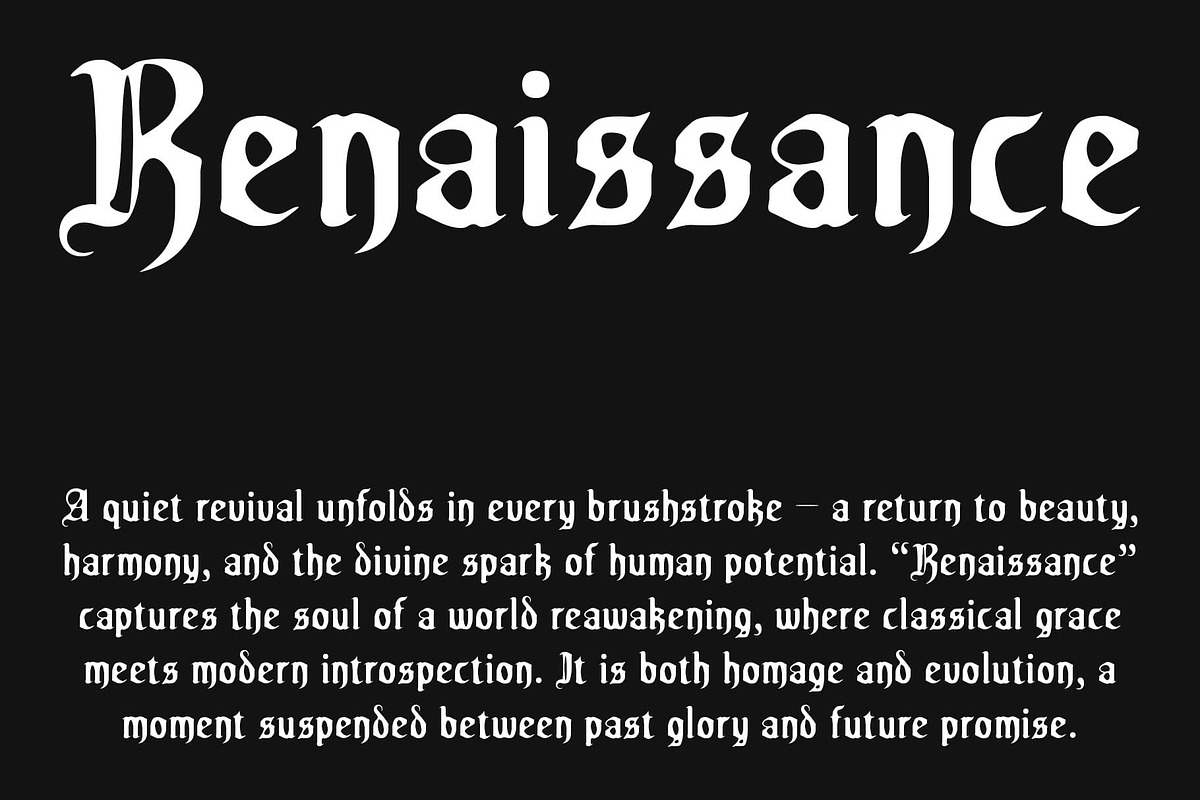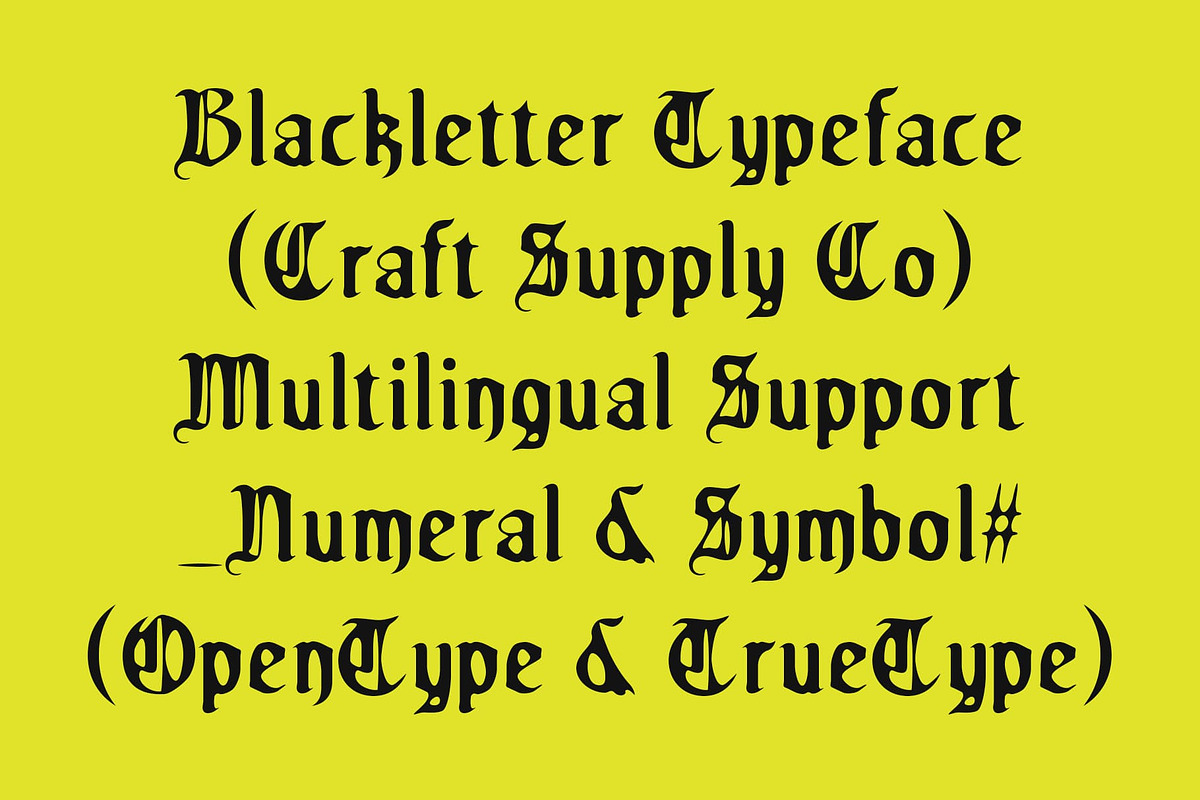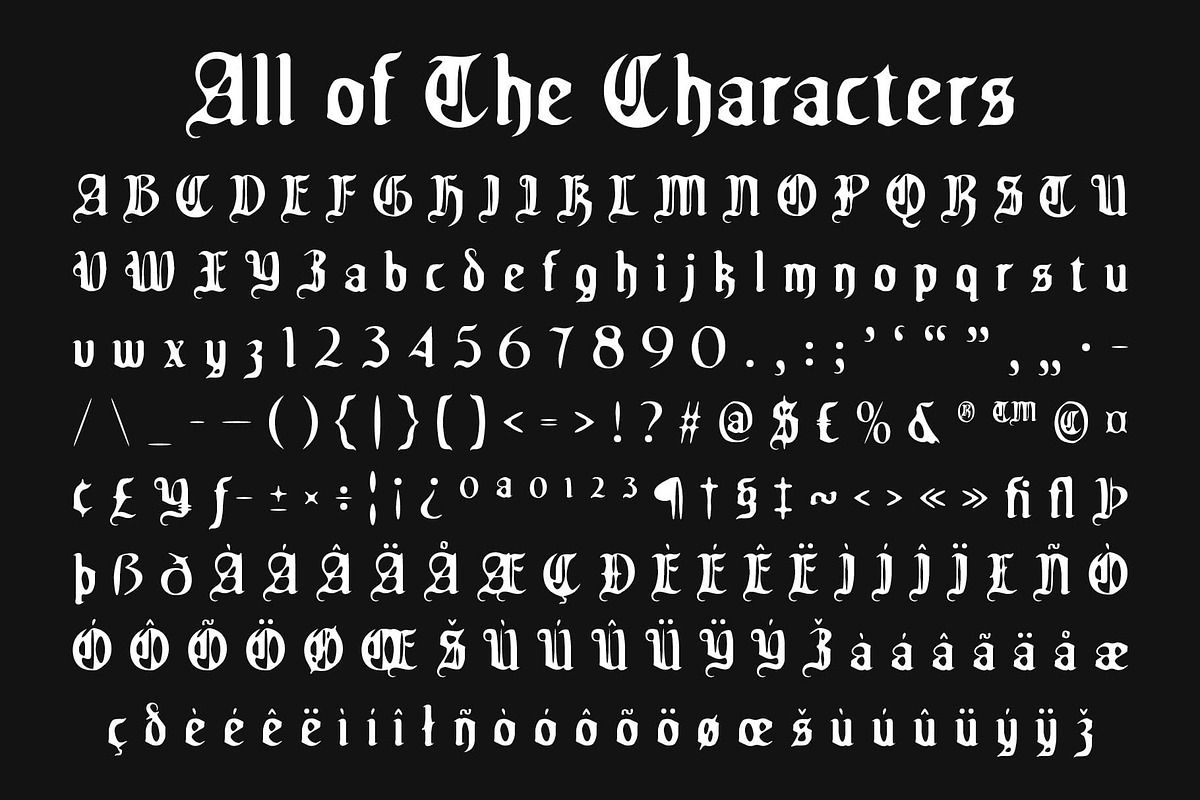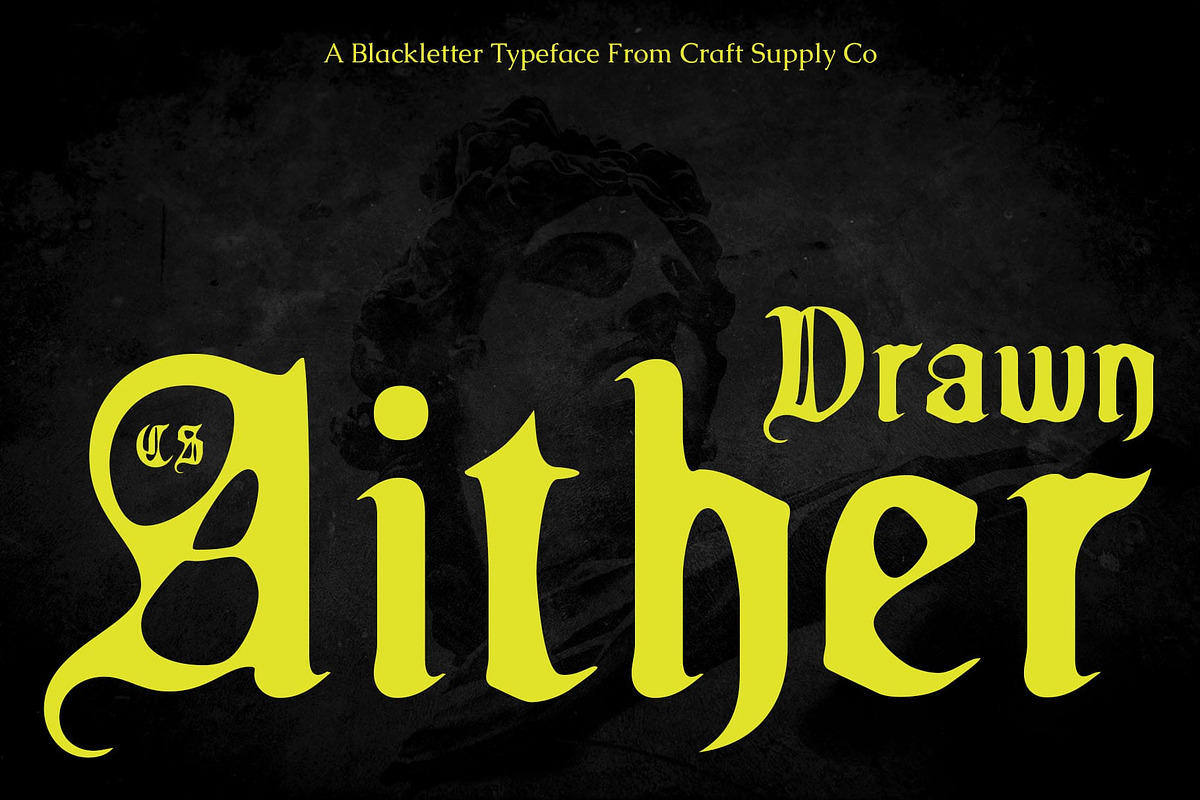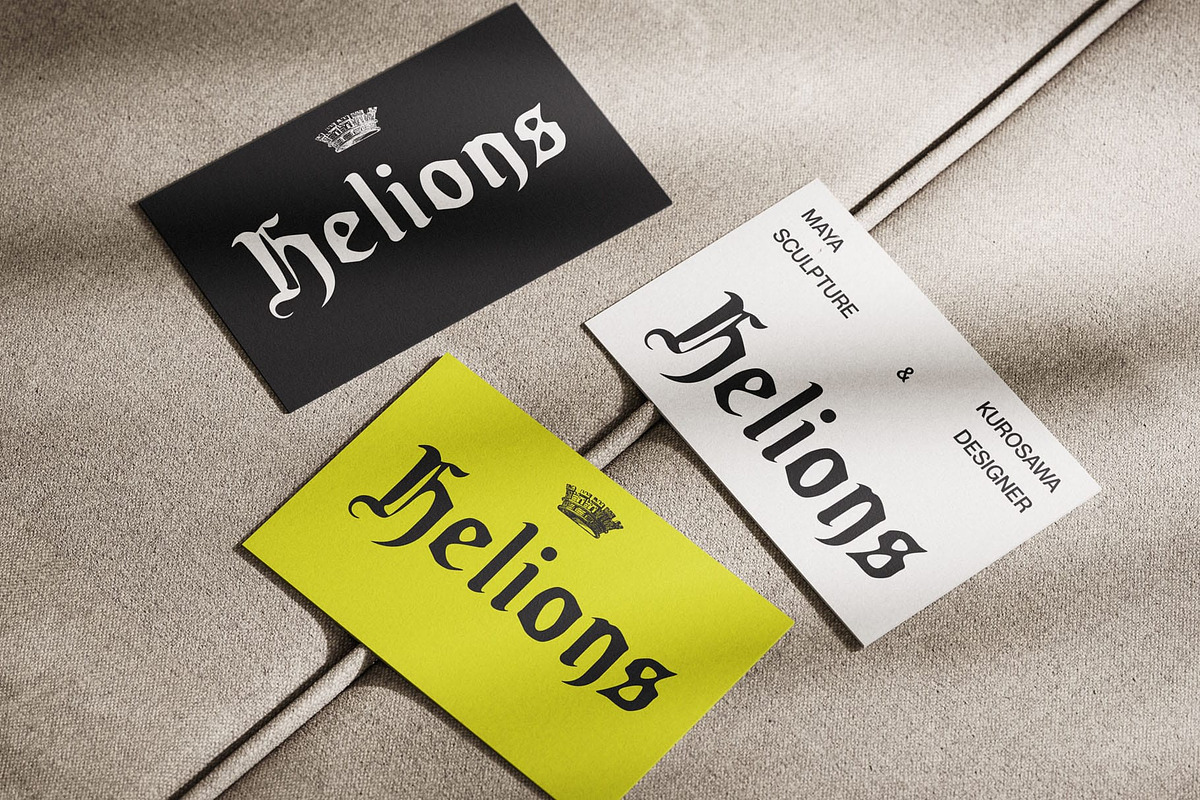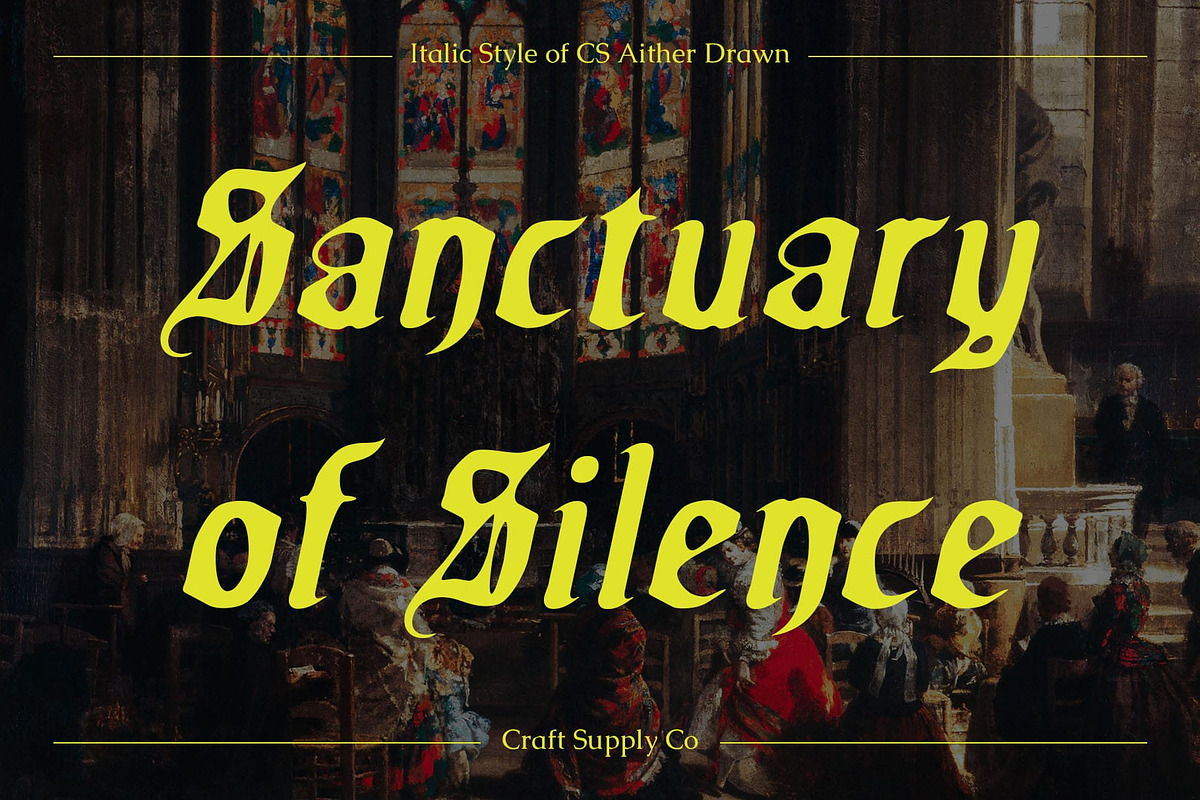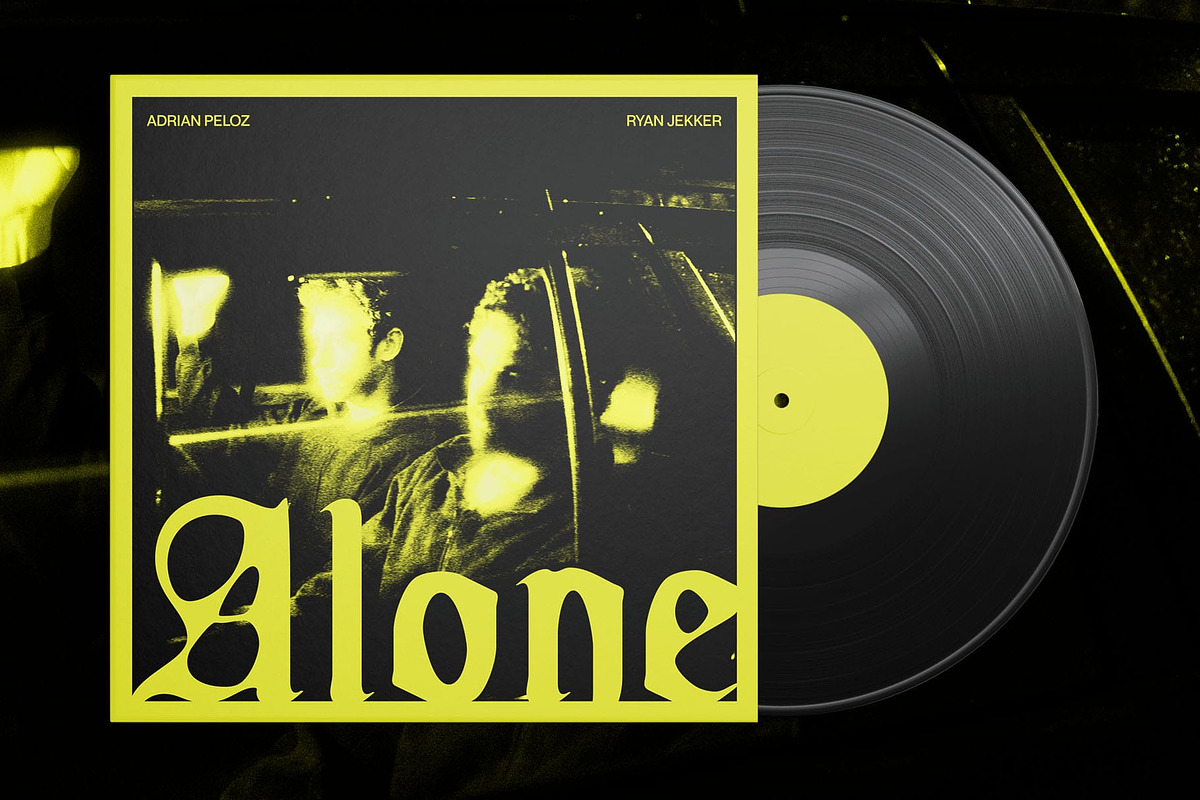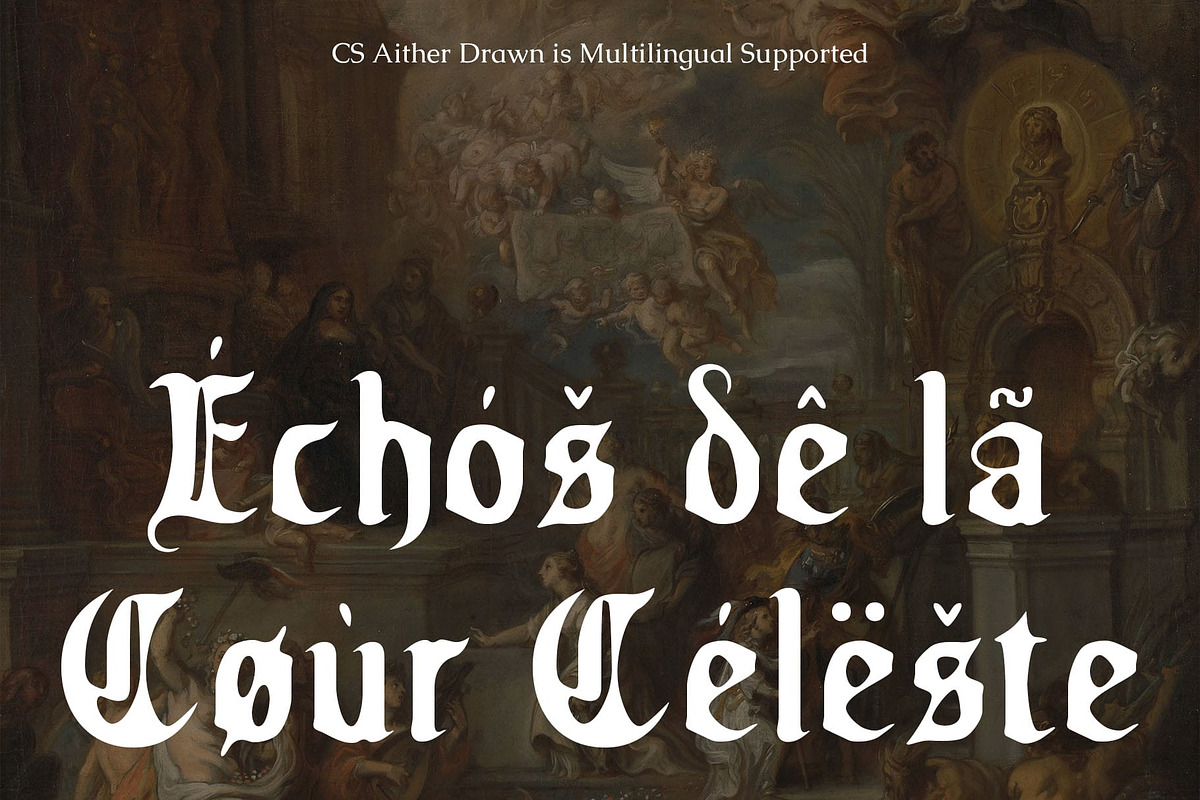
CS Aither Drawn
CS Aither Drawn: Classic Blackletter Meets Handcrafted Edge
Sharp Blackletter Style with Modern Flair This is a modern blackletter display font that brings a bold and expressive twist to traditional letterforms. Its sharp, angular characters preserve the historical presence of blackletter, while introducing a more contemporary edge that makes it stand out in any design setting.
Hand-Drawn Texture for Organic Appeal The font is enhanced with a drawn effect, giving it a raw, handcrafted look. The drawn effect layered over each character mimics hand-drawn strokes, bringing raw texture and artistic depth. This handcrafted finish adds a rough, organic charm that contrasts beautifully with the font’s formal structure. The result is a unique visual personality that feels both historic and handcrafted—ideal for designers who want to add authenticity and edge.
Bold and Expressive Visual Identity This experimental font speaks with intensity. Its visual language is bold and emotional, perfect for making strong statements in visual storytelling. It commands attention while retaining a refined, thoughtful touch—striking the perfect balance between impact and sophistication.
Perfect for Music and Experimental Projects Whether you’re designing a music poster, an album cover, or a visual piece with a gothic or alternative theme, this bold font is your go-to font. Its distinctive fusion of historic style and handcrafted texture makes it ideal for projects that seek originality, emotion, and bold artistic expression.